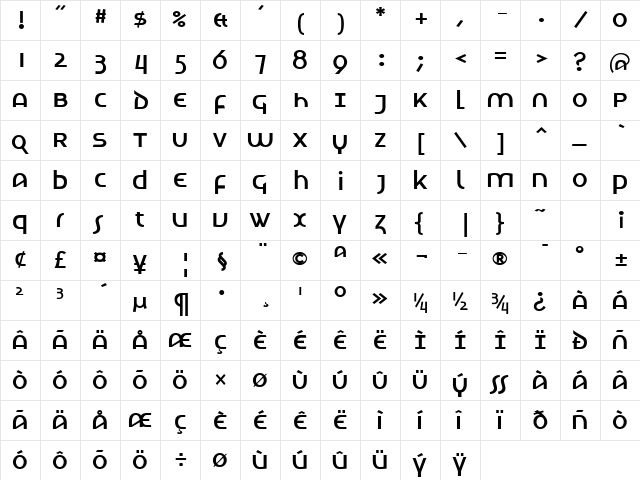
Letunical Bold
Design Context for Letunical Typeface
Letunical takes a measured approach to typography — its balanced proportions and neutral character make it a reliable workhorse for both digital and print work. The heavy weight commands attention and anchors typographic hierarchies.